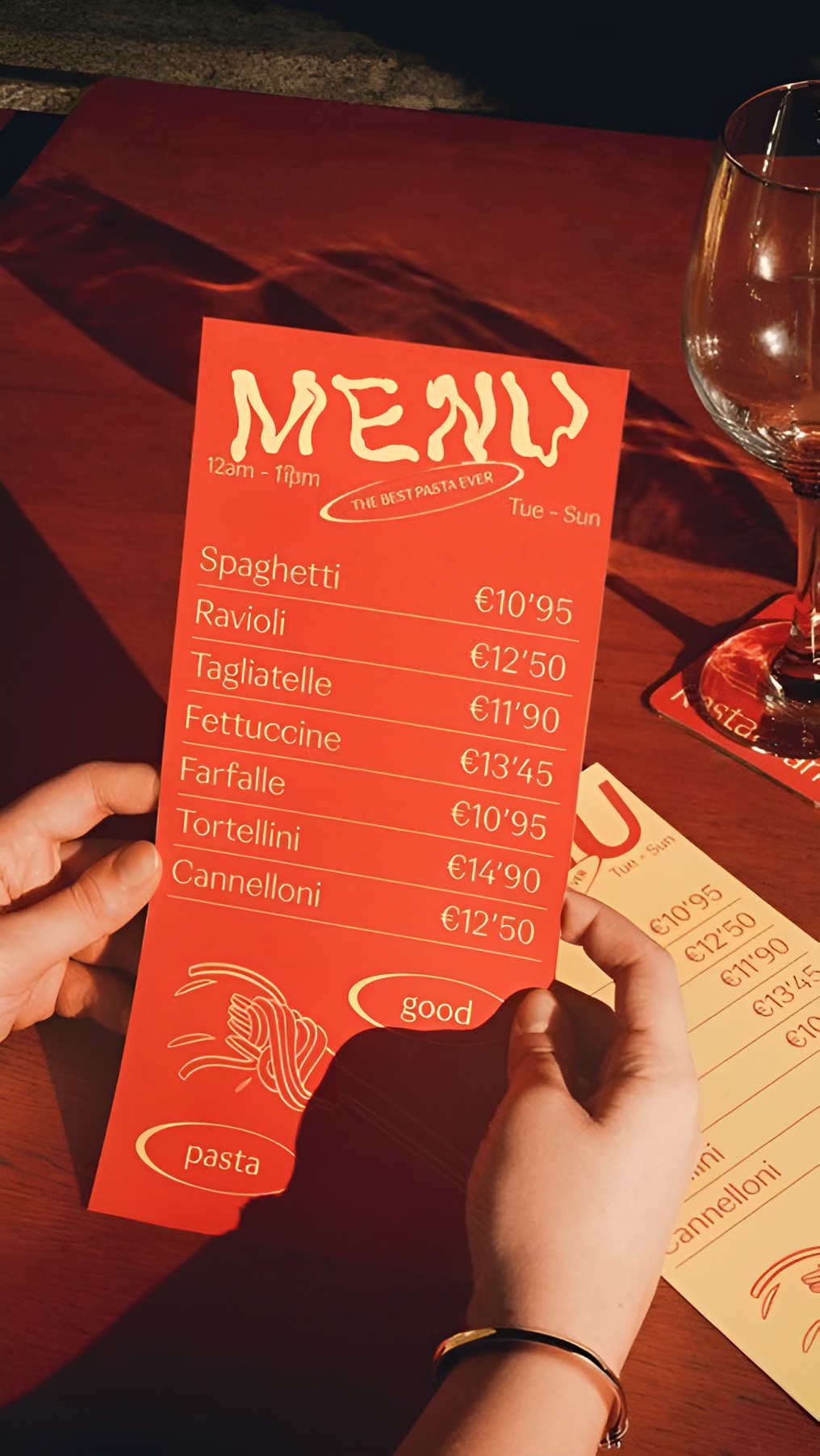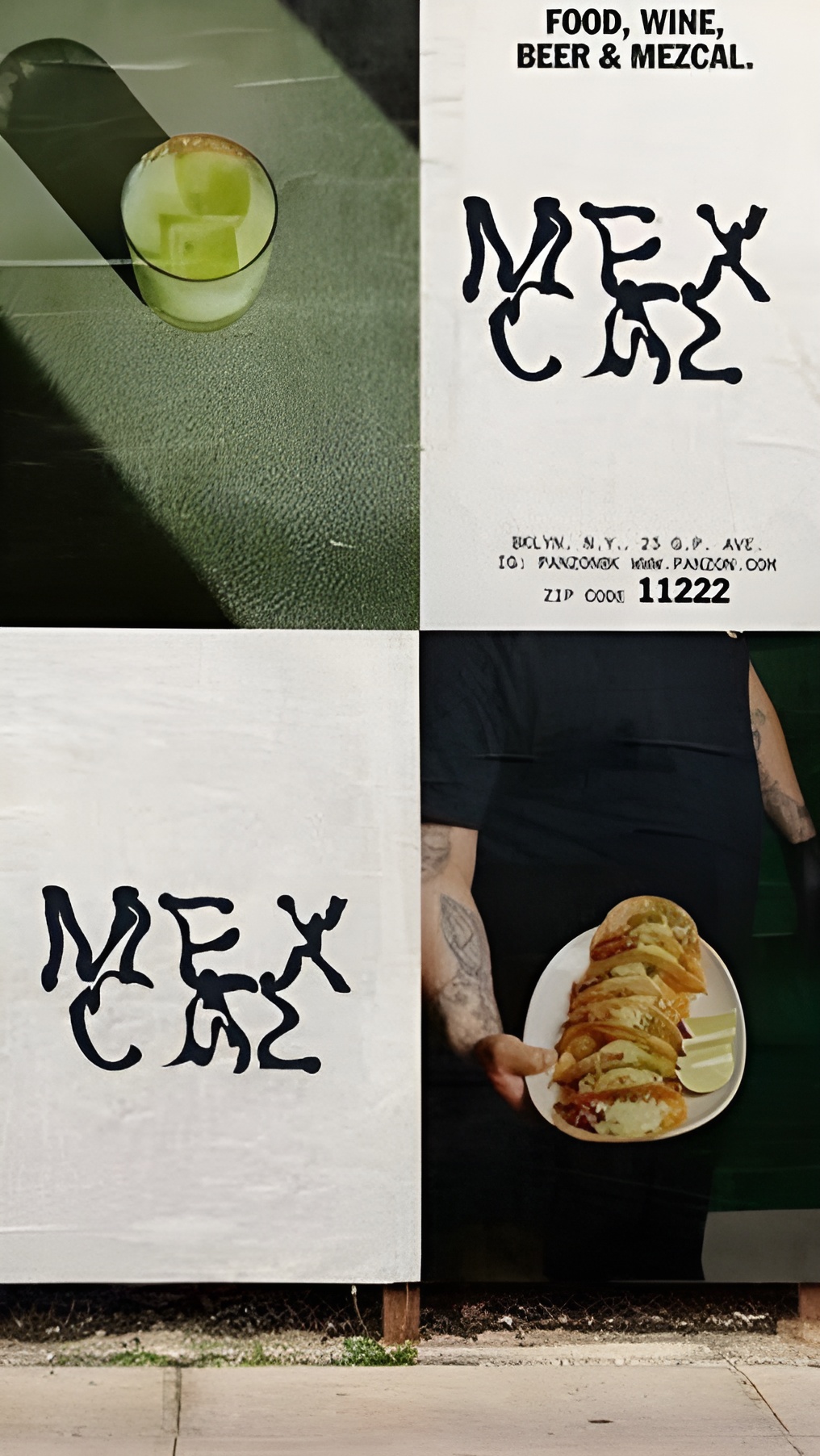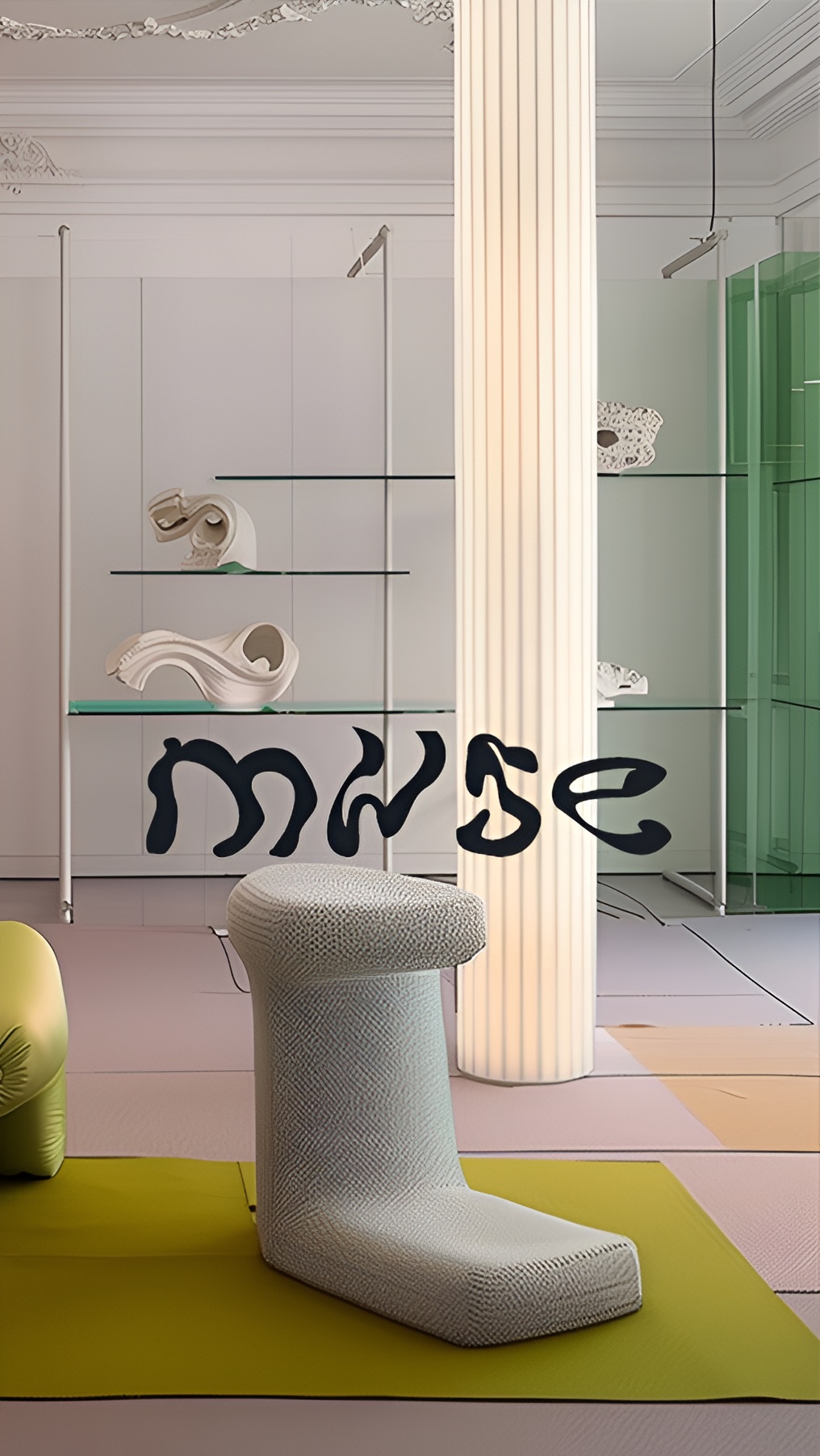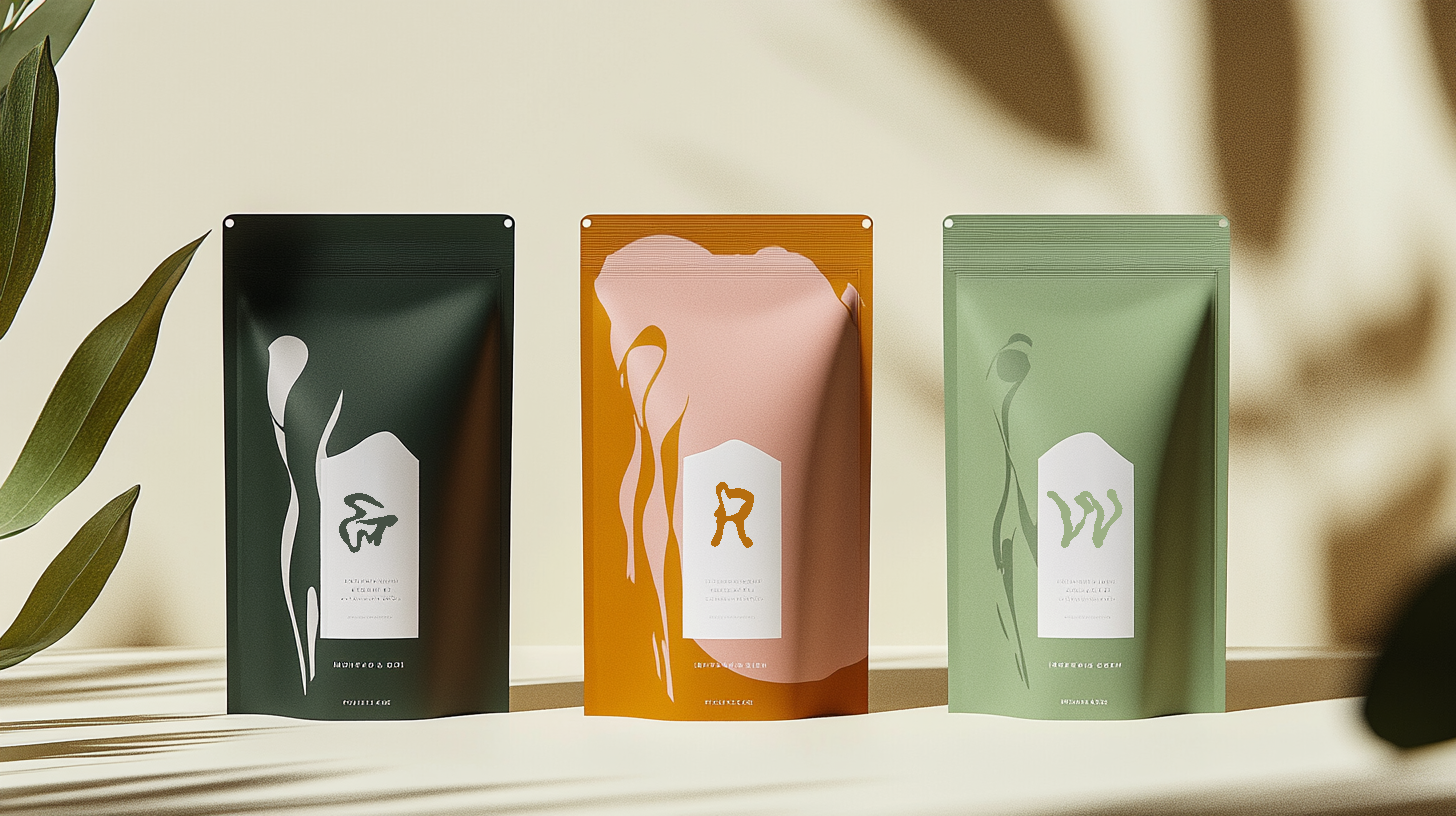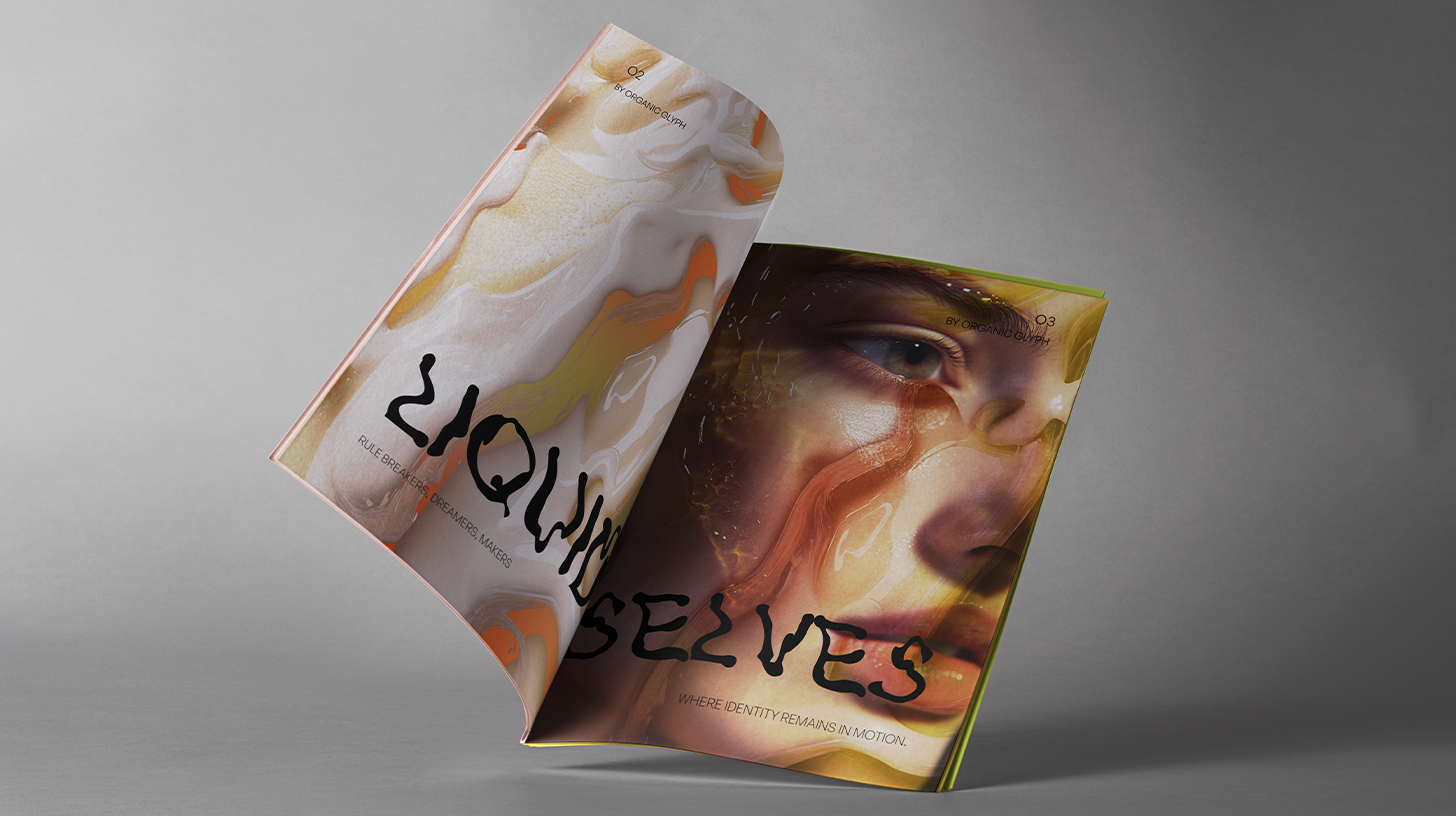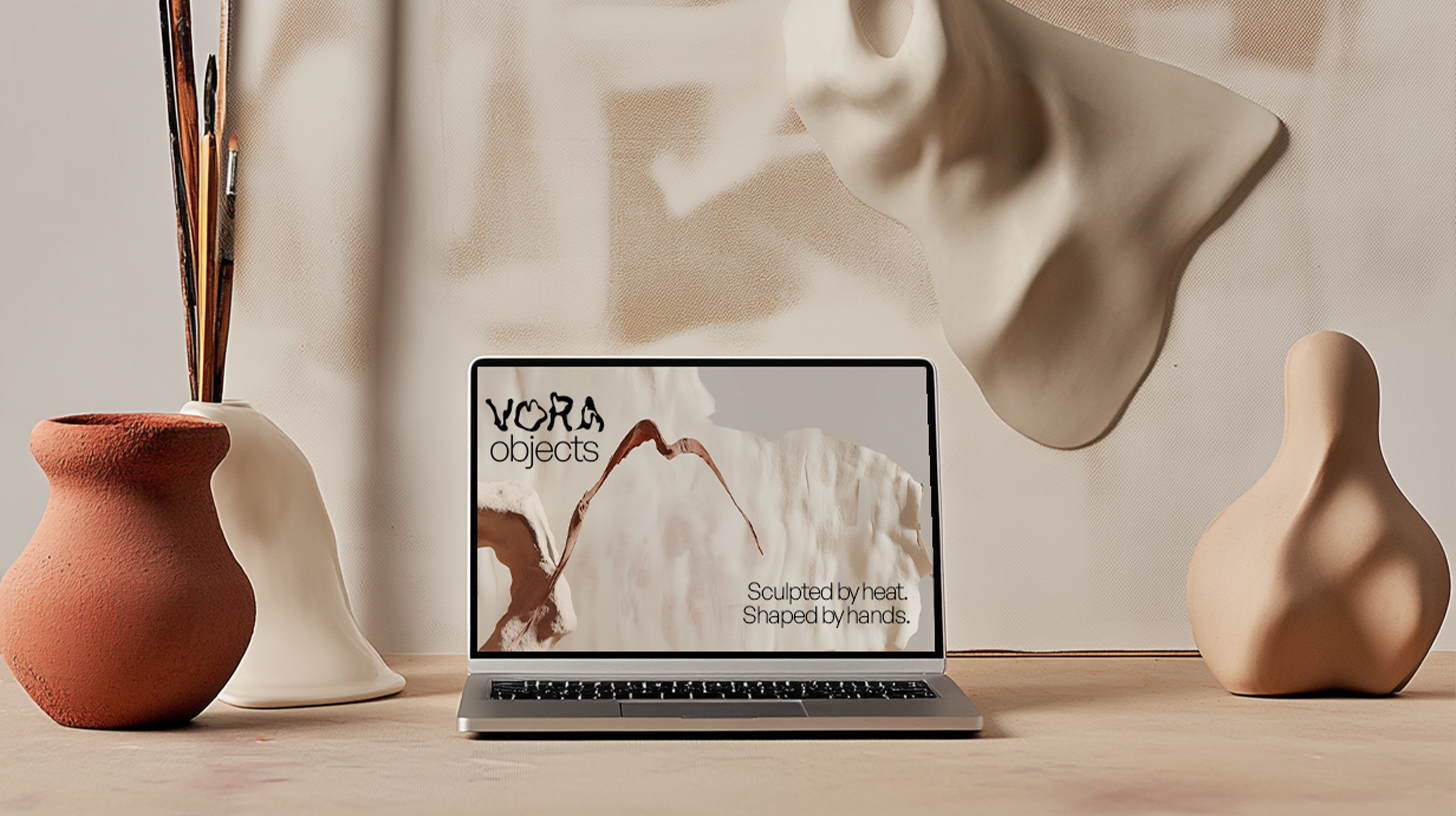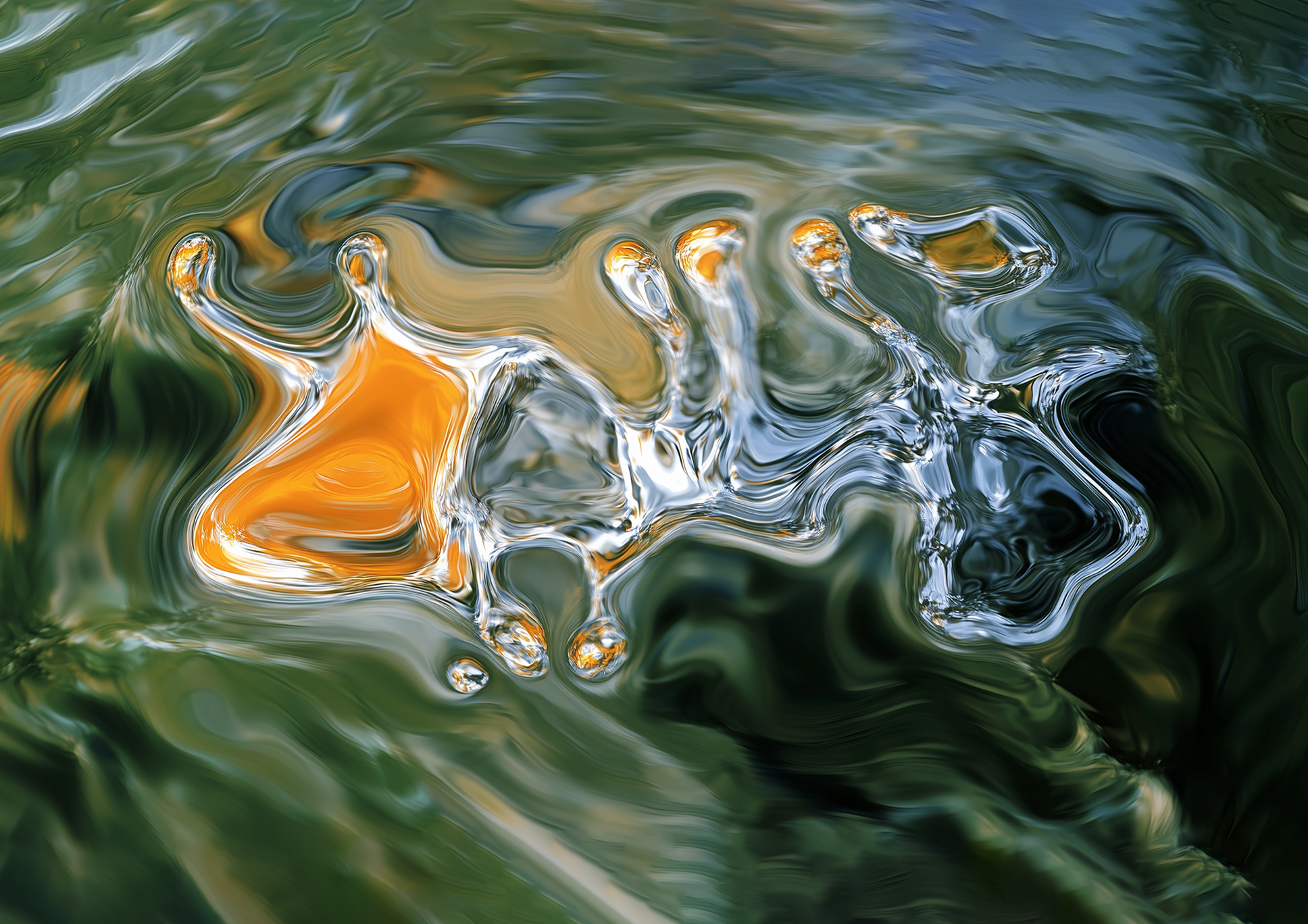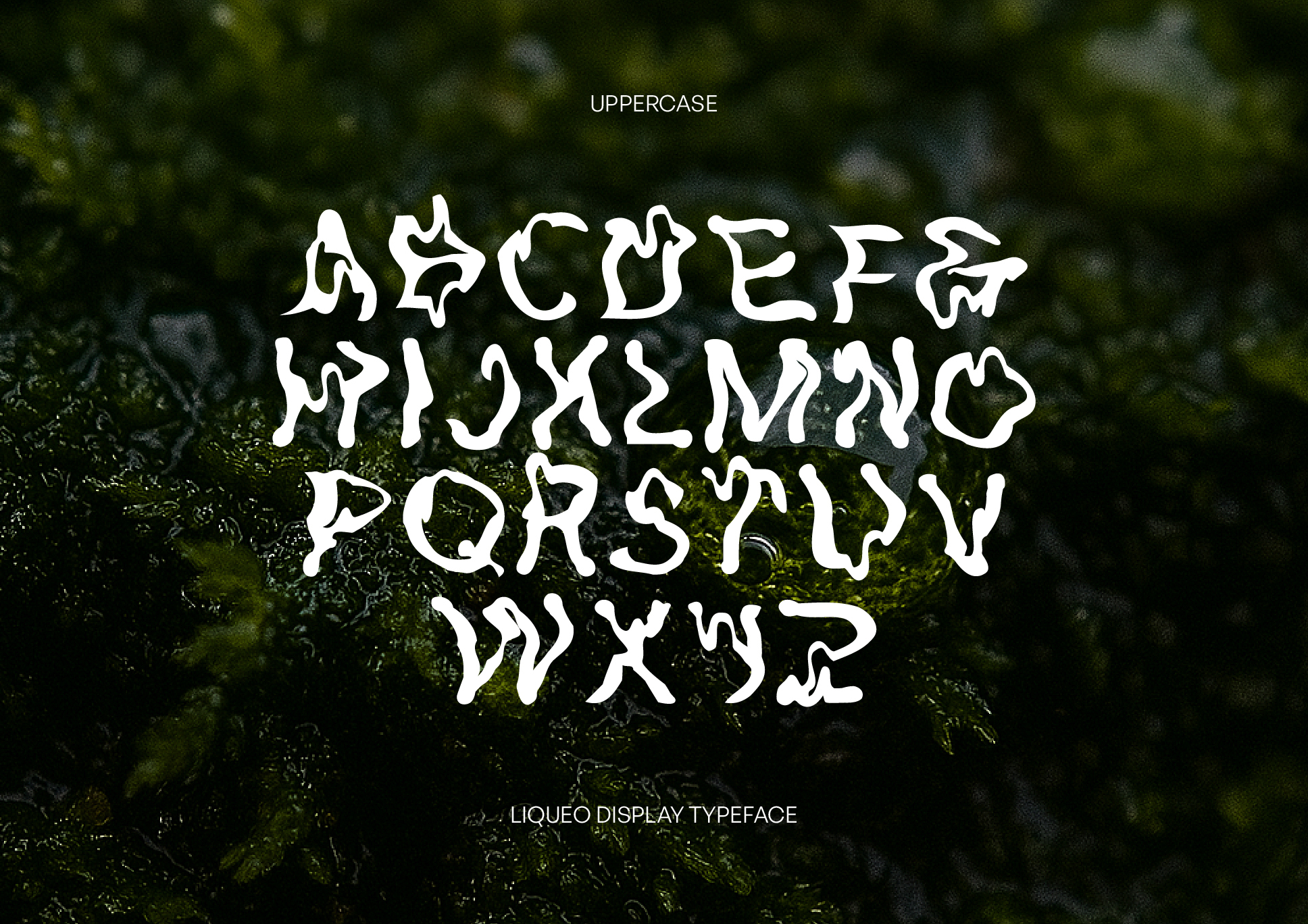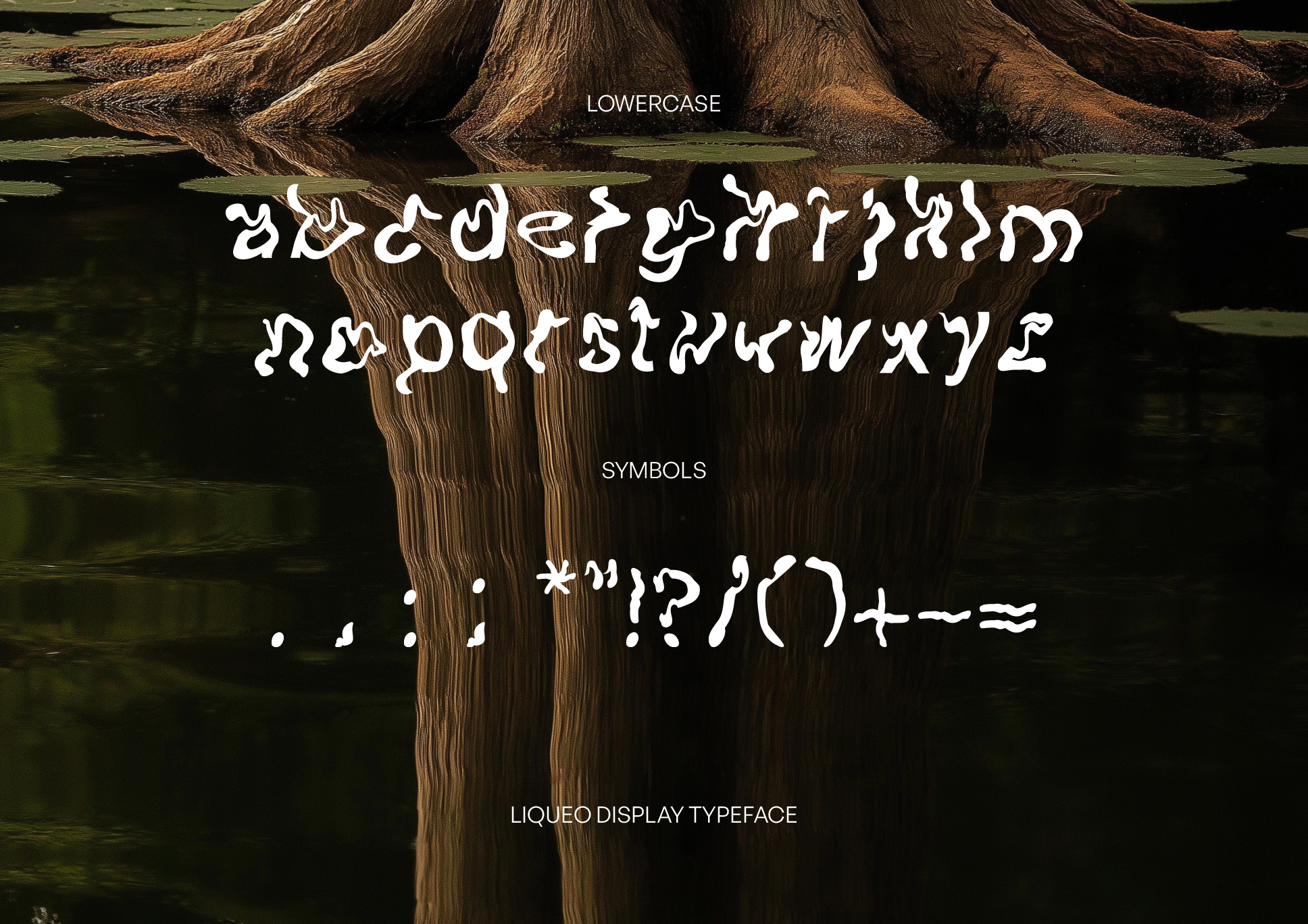
Liqueo
Liqueo is a fluid, organic display typeface inspired by the movement of water, melting forms, and biomorphic growth patterns. Its soft, continuous curves create letterforms that feel alive, adaptive, and expressive. Liqueo is ideal for editorial identities, art direction, visual culture projects, and creative branding seeking organic forms and emotional typography.